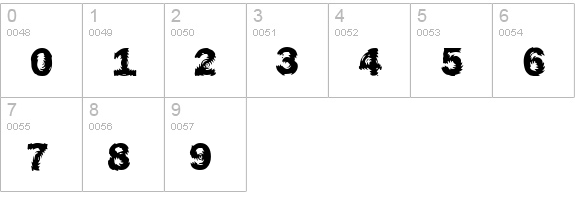
Funky21-Bold is a strong, high-contrast variant in the Funky21 typeface family \xE2\x80\x94 well suited to headlines, attention-grabbing titles, and strong calls-to-action.
Funky21-Bold font is a vibrant and eye-catching typeface that exudes a sense of fun and playfulness. Its bold and funky design makes it perfect for a variety of creative projects, from posters to logos to social media graphics. The unique combination of rounded edges and exaggerated strokes gives this font a modern and energetic look that is sure to grab attention. And the best part? Funky21-Bold font is available for free download at FontsMarket.com. This means you can easily add this dynamic font to your collection without breaking the bank. Whether you're a seasoned designer looking to spice up your projects or a newcomer searching for a fresh and exciting font, Funky21-Bold is the perfect choice. Download it today and let your creativity run wild!